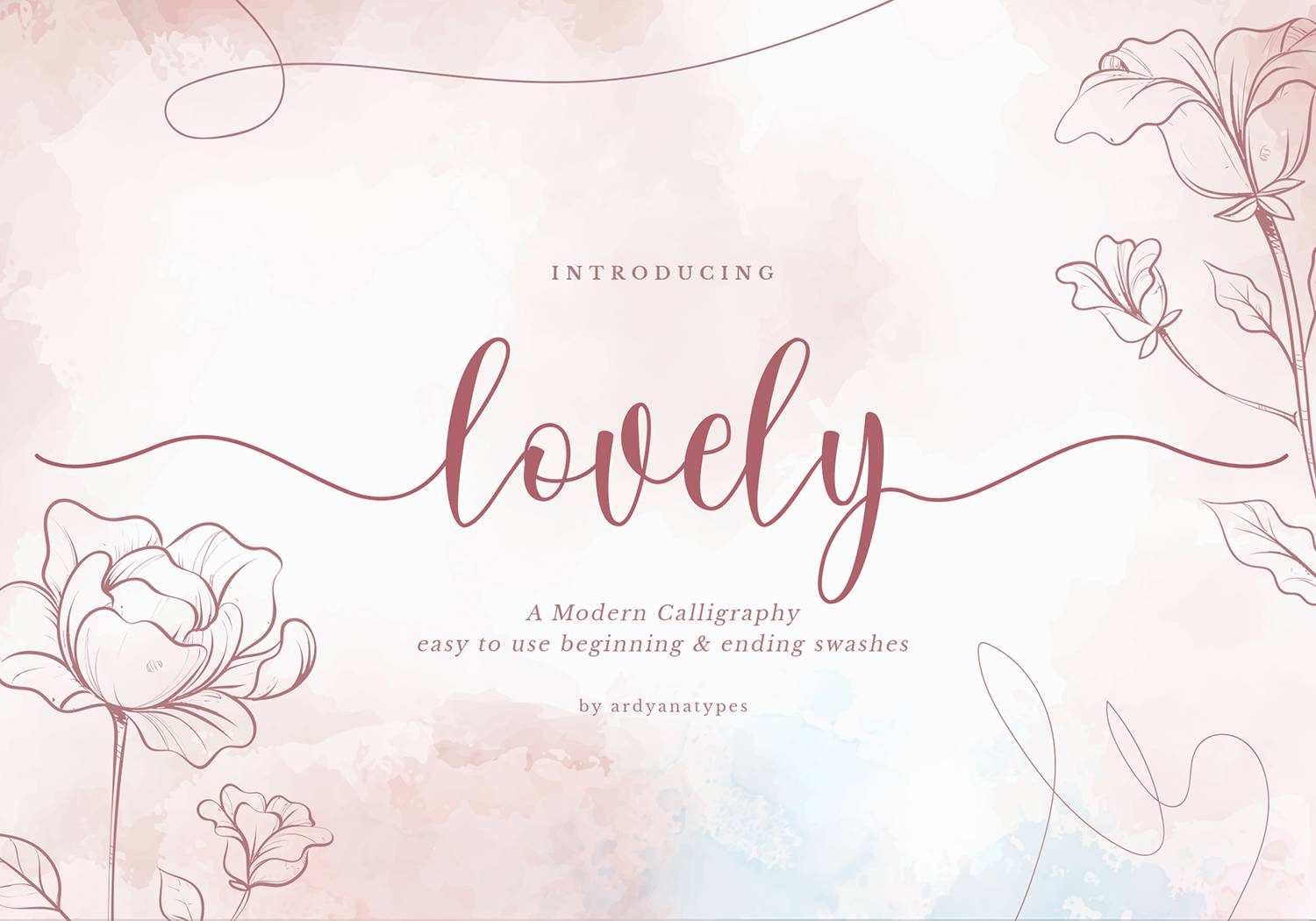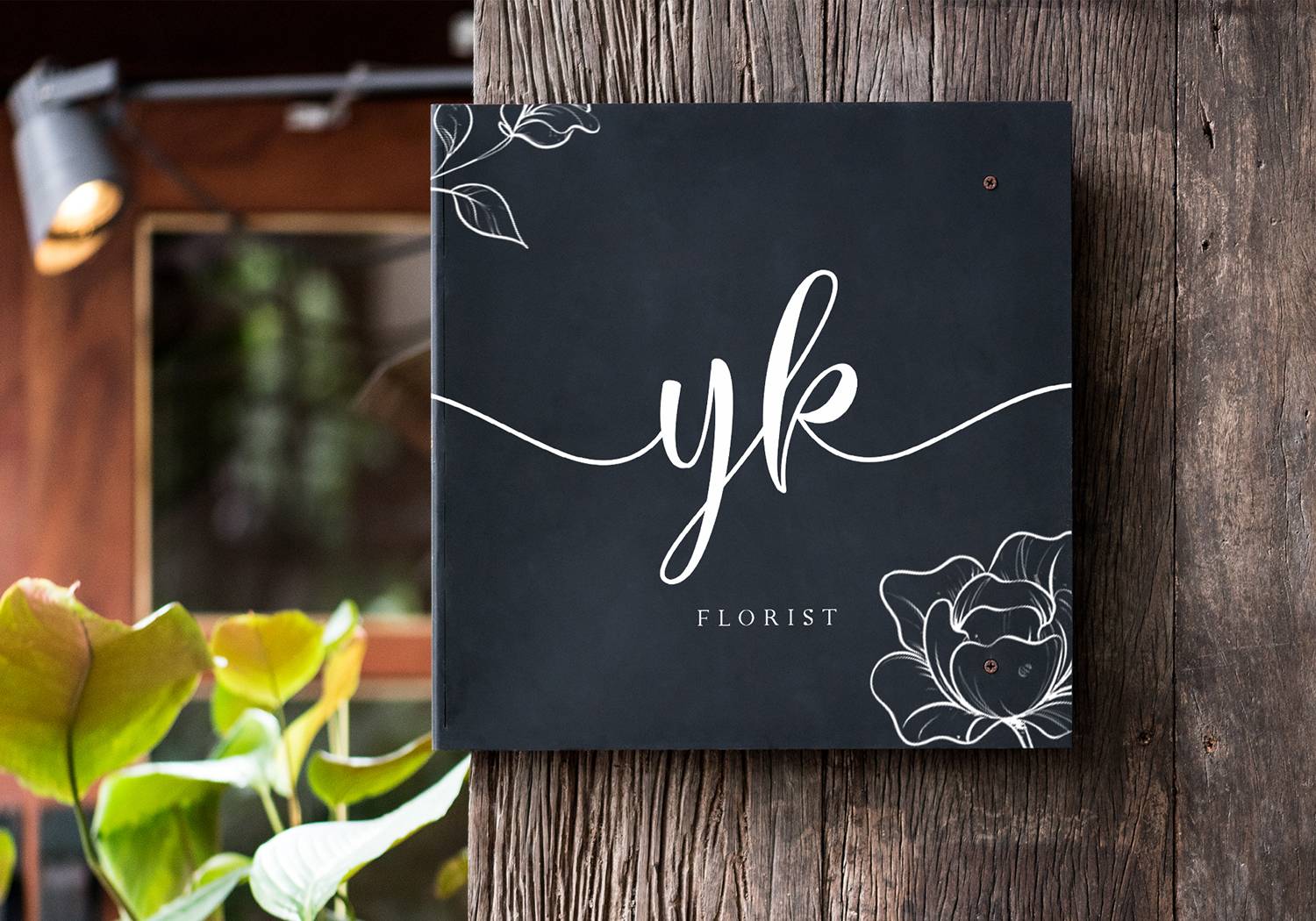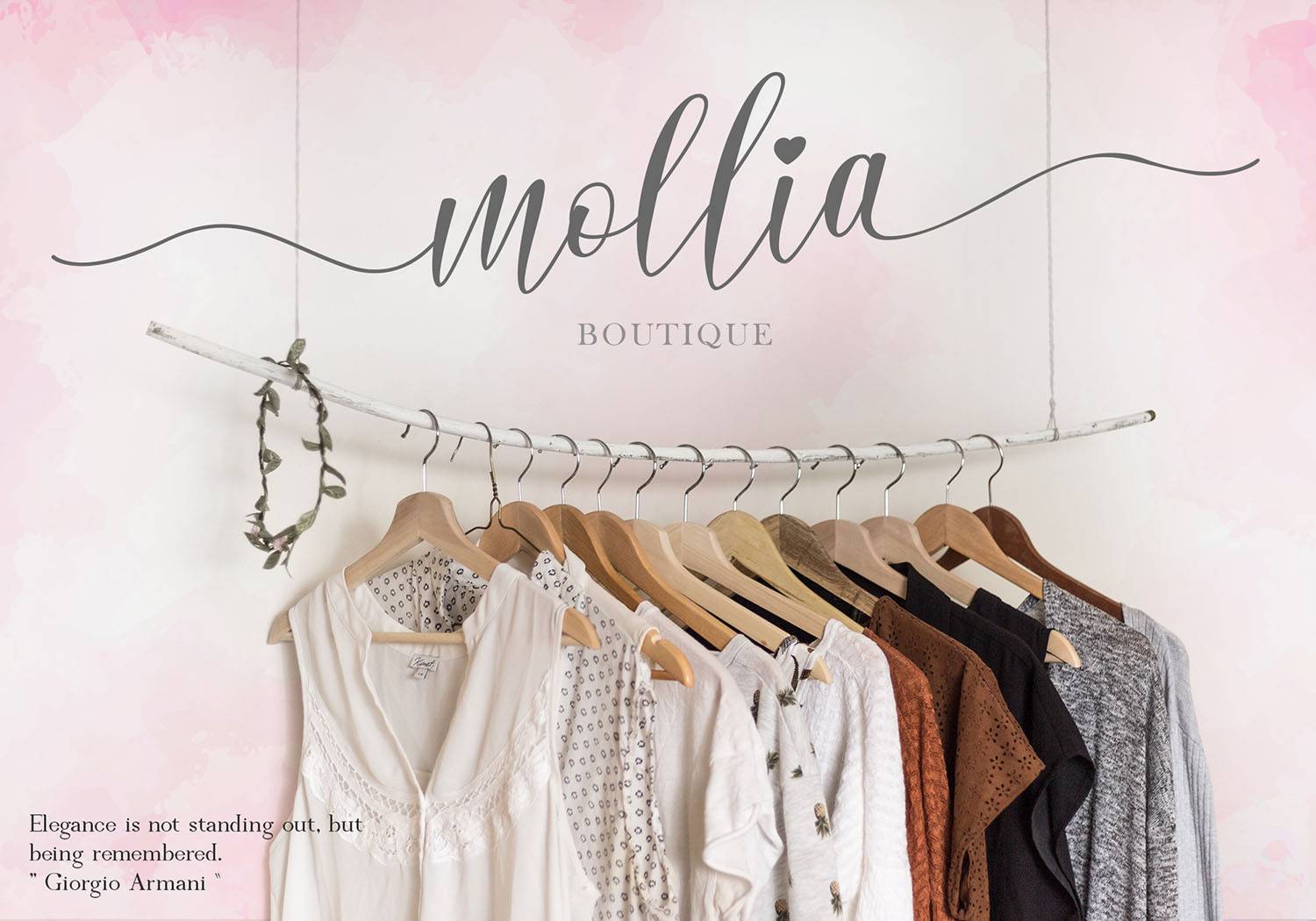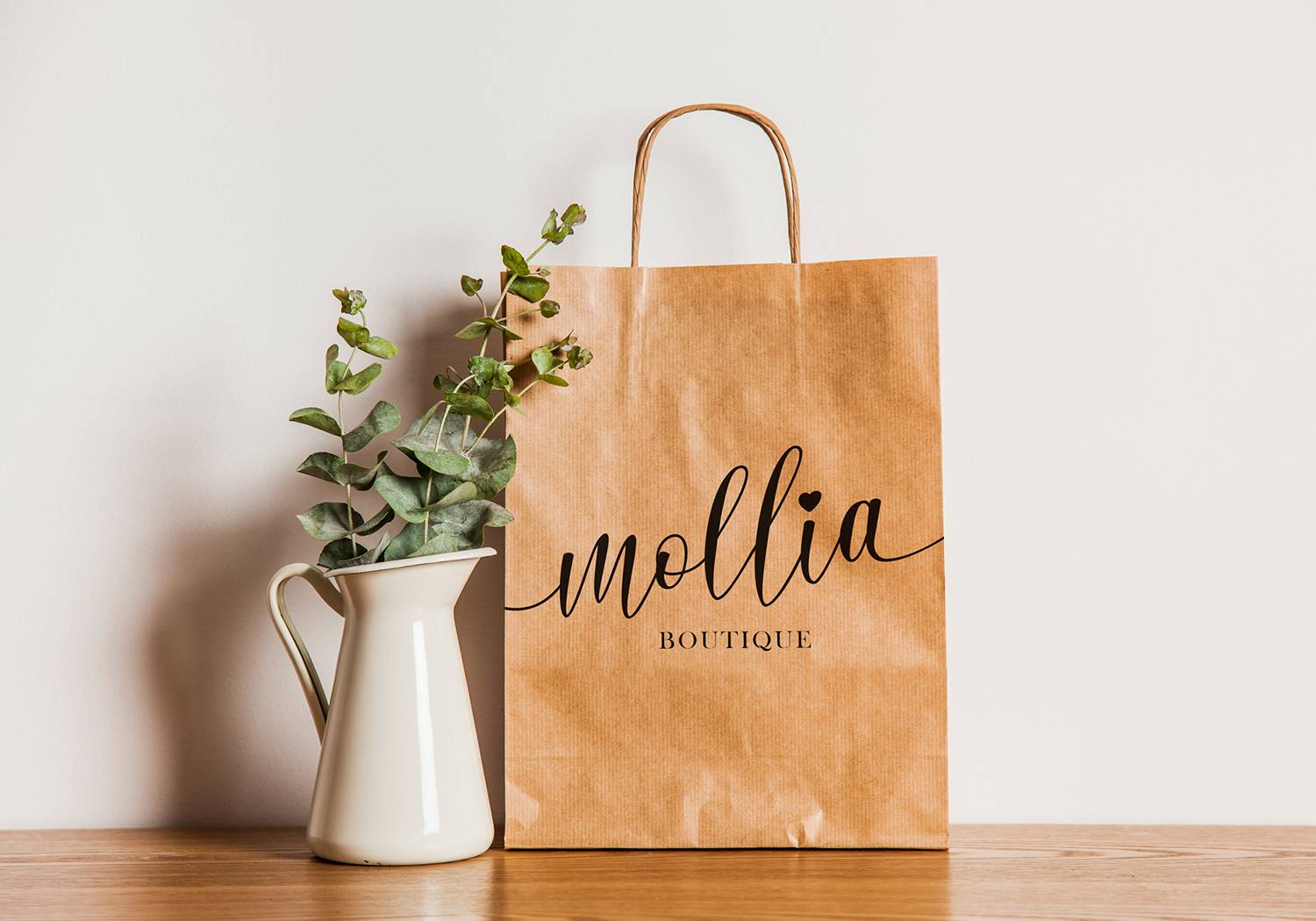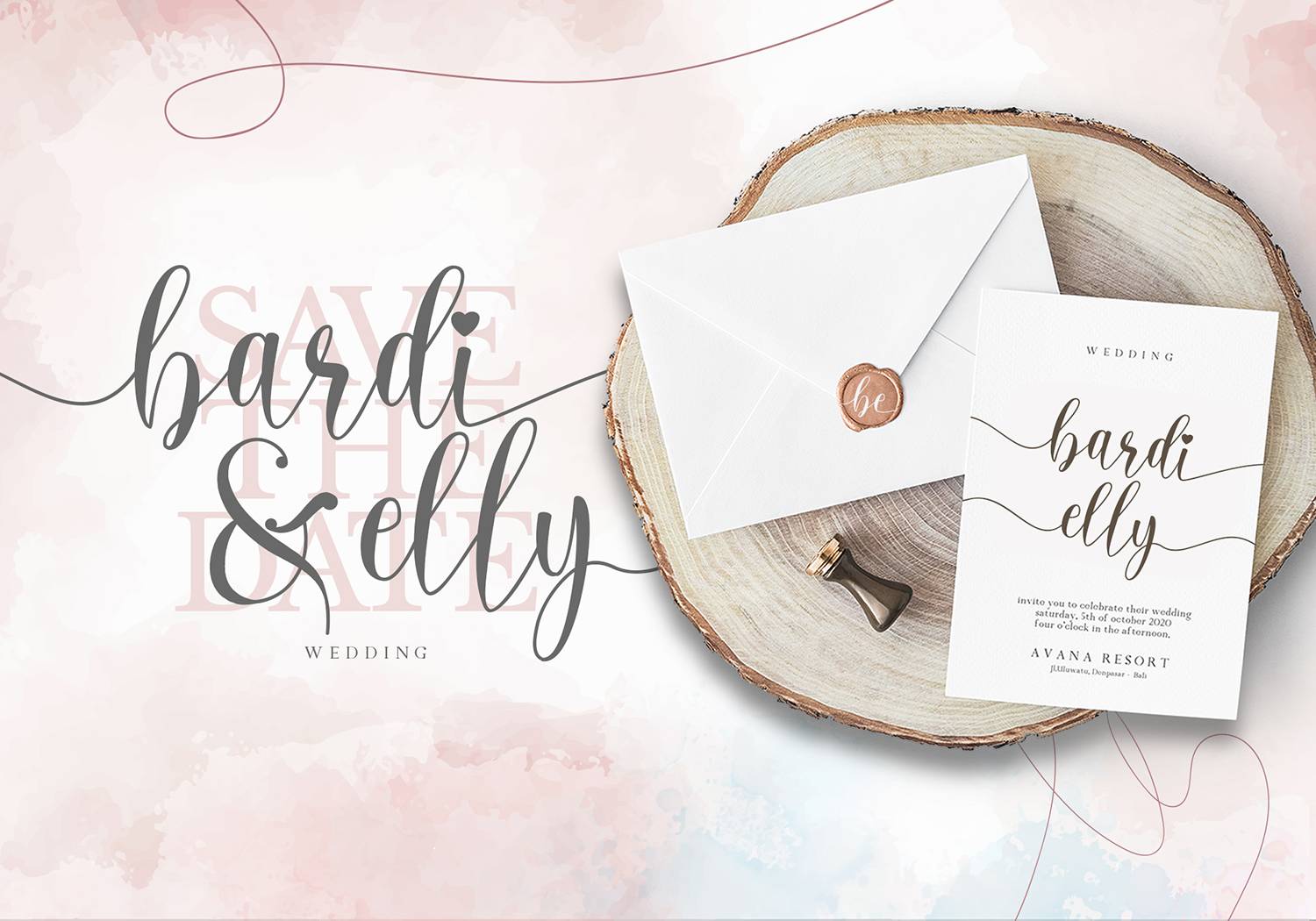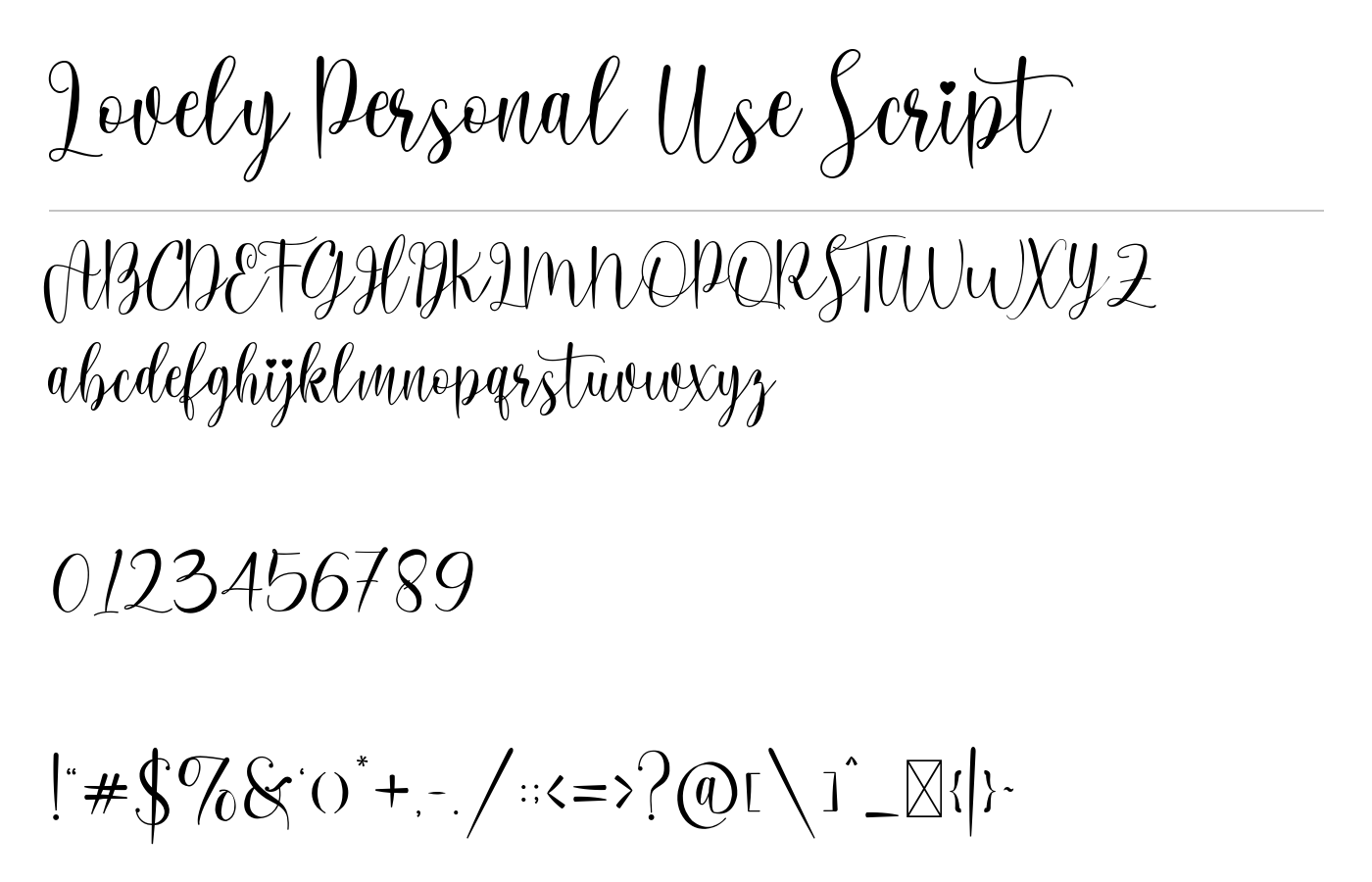
Lovely Font is a delicate and elegant script typeface characterized by its thin, flowing strokes and graceful swashes, giving it a handcrafted, romantic feel. Its playful heart details and varied line thickness make it ideal for invitations, branding, and any design seeking a personal, charming touch. This font shines in projects that need a sophisticated yet approachable aesthetic, such as wedding stationery, fashion logos, and stylish editorial headlines.
Lovely Font
About Lovely Font
| Font family | Lovely Font |
| Release date | 2020-05-07 |
| Designer | Ardyana Types |